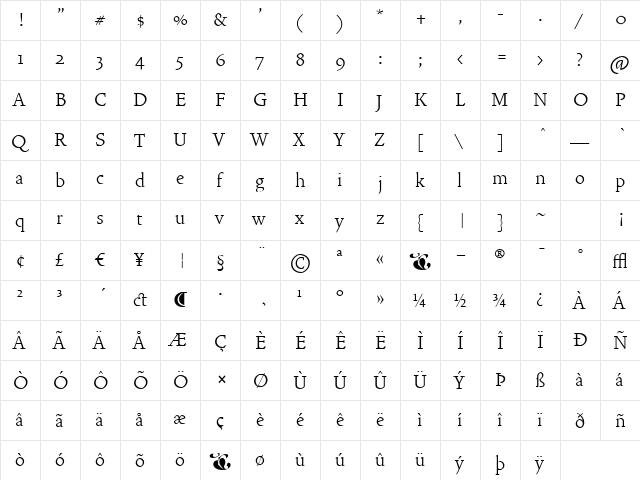
VendettaLight Regular Font Preview
VendettaLight Regular
VendettaLight Regular Font Details
| Foundry | Emigre |
| Designer | John Downer |
Design Context for VendettaLight Typeface
VendettaLight offers clean, dependable letterforms without strong stylistic allegiance, making it a practical choice for designers who need flexibility. Its slender proportions lend an understated elegance to any composition.